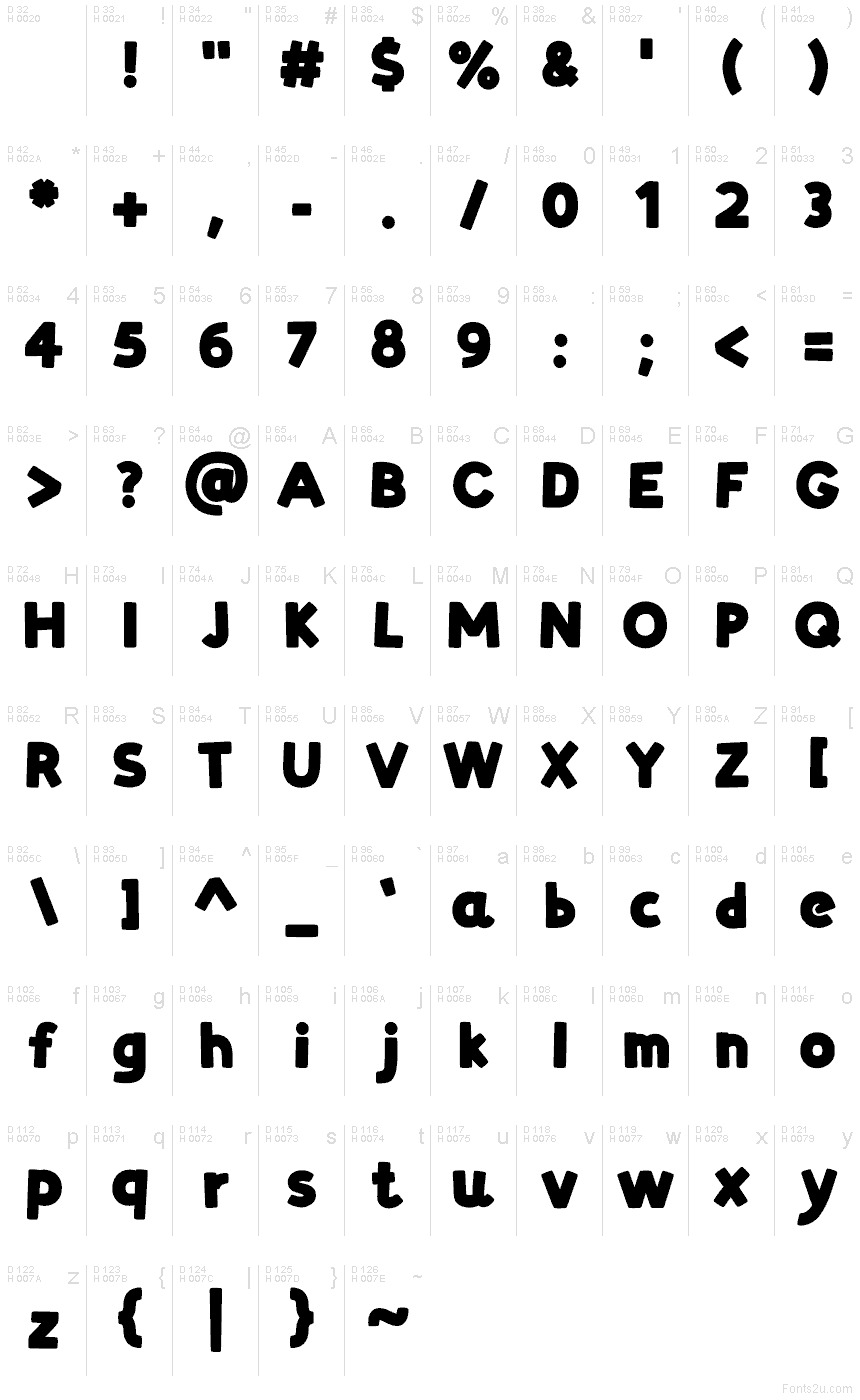
Zyzol Bold
Zyzol Bold font by Szymon Furjan is a free cartoon display font from the Zyzol family with a squishy, ink-heavy presence. Its defining charm is the bouncy rhythm—wide, soft curves and slightly tilted silhouettes that feel hand-cut yet confidently loud. The result is friendly impact: chunky forms that read fast, hold space, and radiate playful energy without slipping into chaos.
Using Zyzol Bold, headlines snap to attention on kids’ packaging, snack logos, birthday posters, sticker sheets, playful app onboarding, YouTube thumbnails, and event flyers. This free font shines when set large, where its rounded mass and lively spacing can breathe. Pair big Zyzol Bold titles with a clean, neutral sans for body copy to keep the message crisp and sunny.